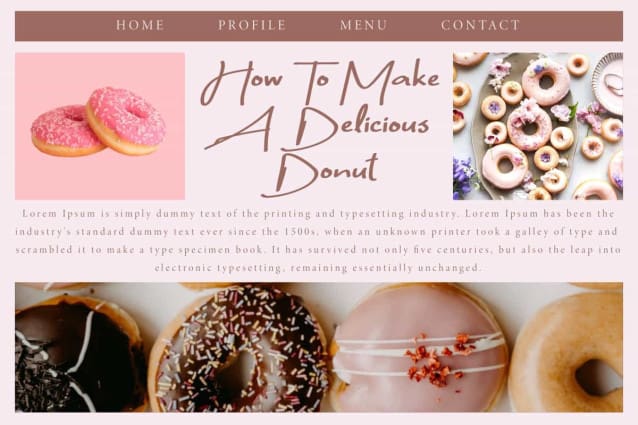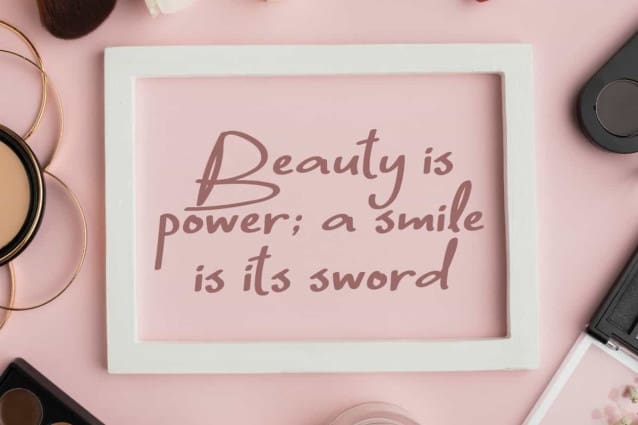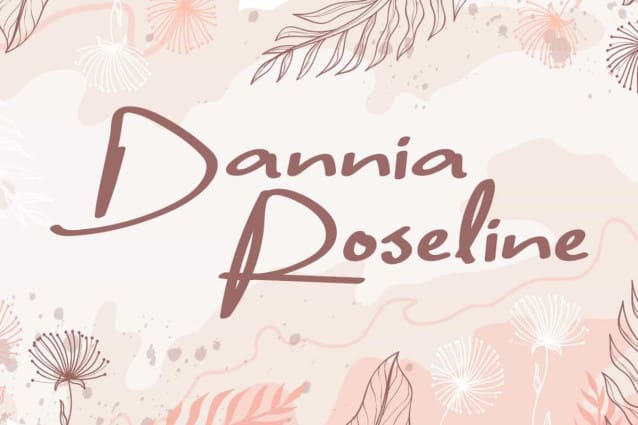
Dannia Roseline Font
Dannia Roseline Font is a playful casual handwriting font with simple thin brush style. This font has a simple and beautiful look at the same time because of its strokes. It will suits many designs, such as brochure, cover, custom design, gift box, invitation, label, menu, poster, product packaging, quote, screen printing, signage, stationery, website, and more!
Dannia Roseline Font includes full set of Uppercase and Lowercase Basic Characters, Numerals, and Punctuation. This adorable font characters will be suitable for many industries, such as advertising, beauty product, café, event or wedding organizer, fashion, florist, furniture, handicraft, photography, etc.